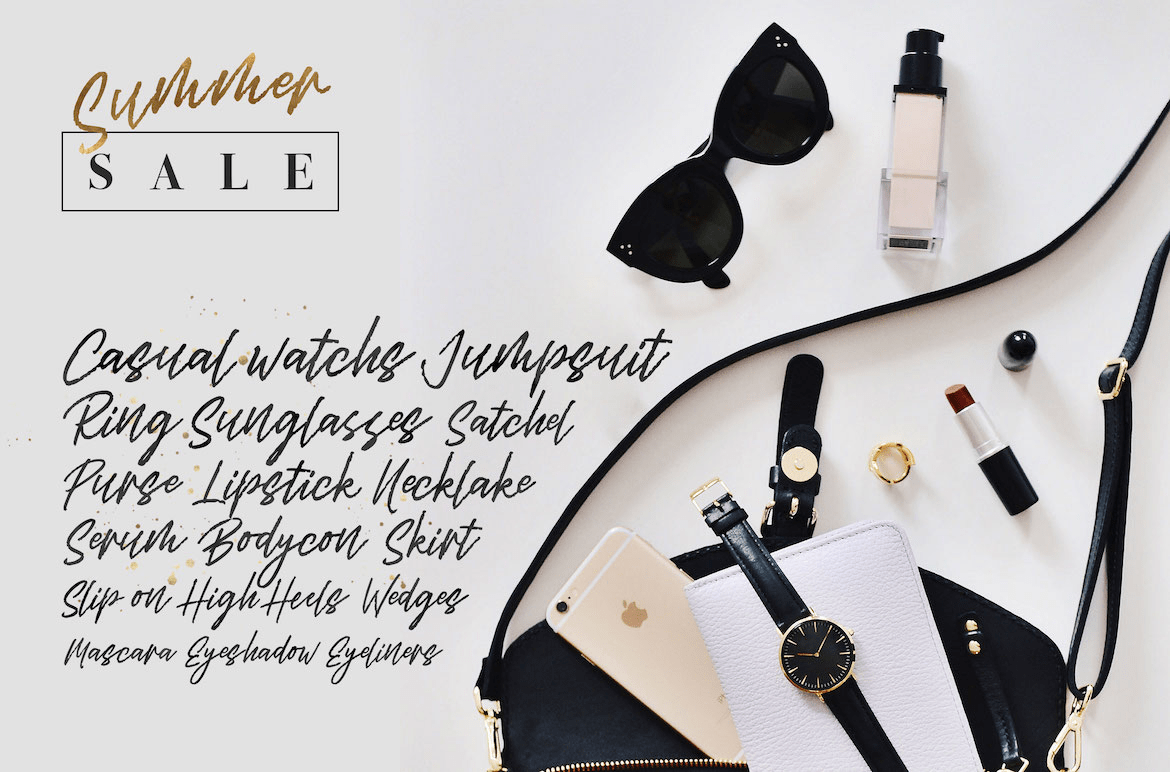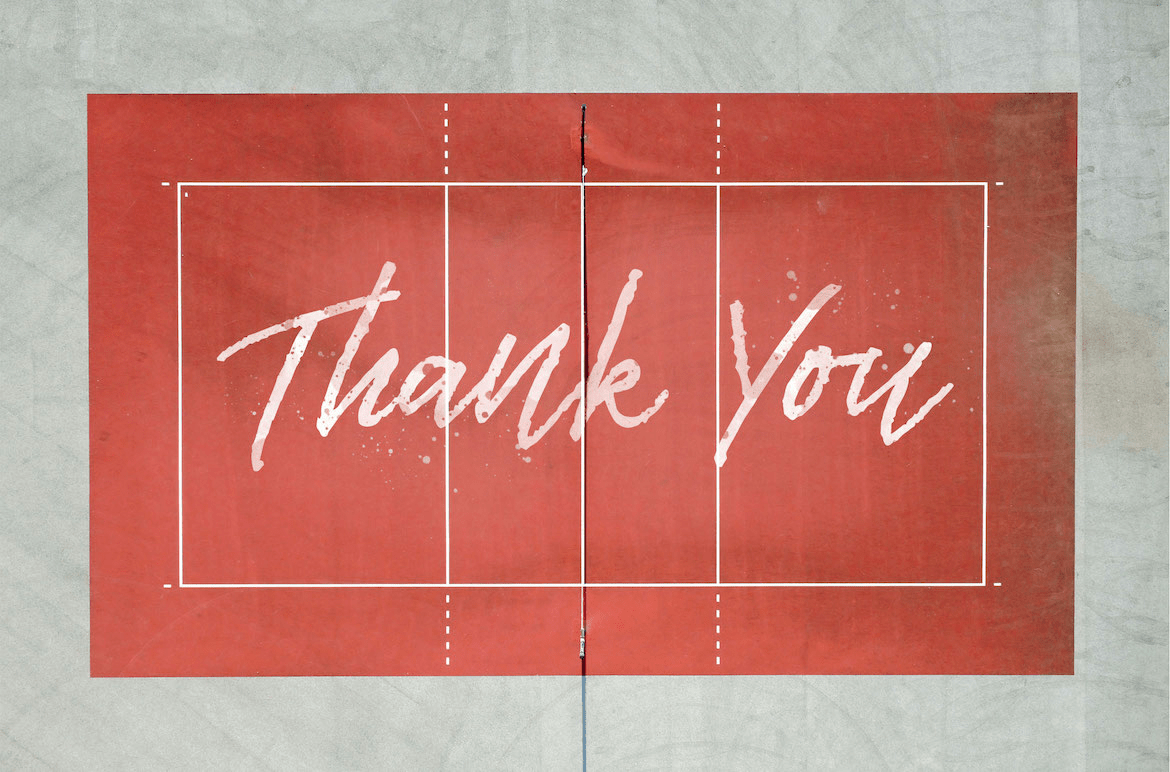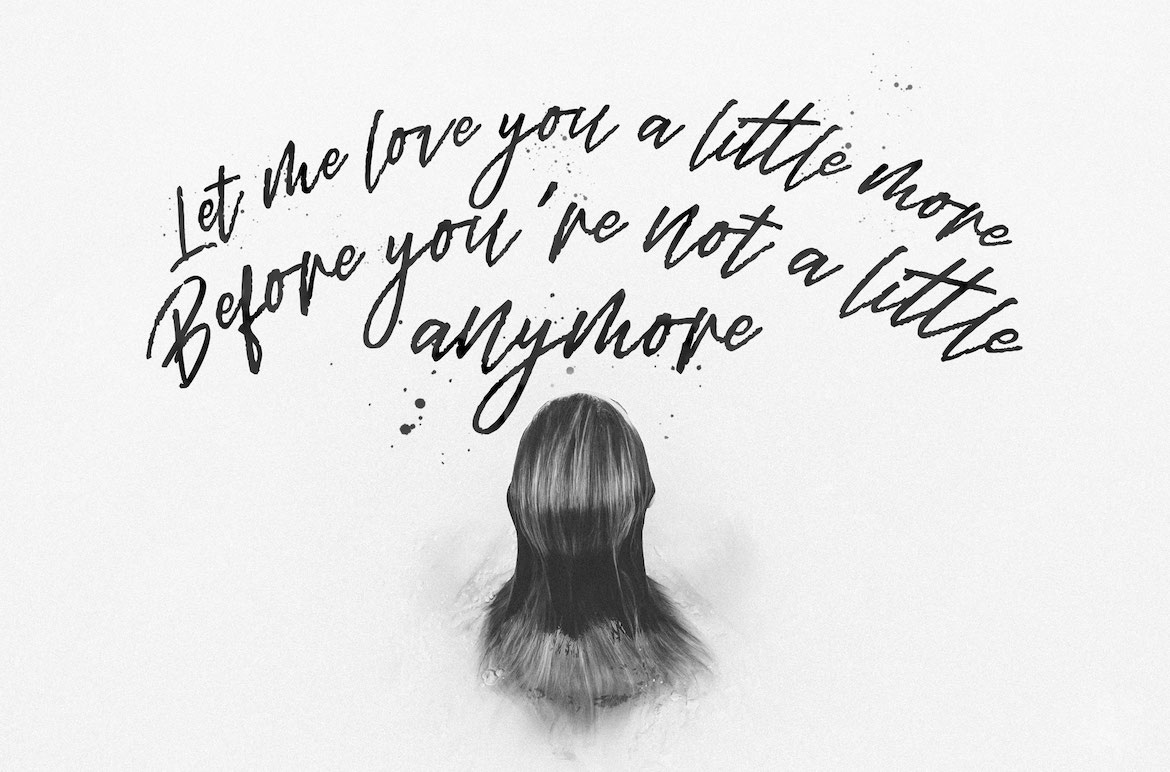
About Rhytmic Dances
Referring from daily handwriting This fonts is based on dialy handwriting with added style with dancing baseline. Rough as just natural from the markers. Creating the artwork with Rhytmic Dances made your art are become organic and natural style. Rhytmic…